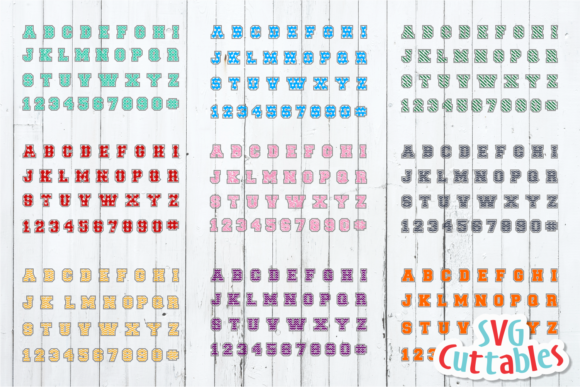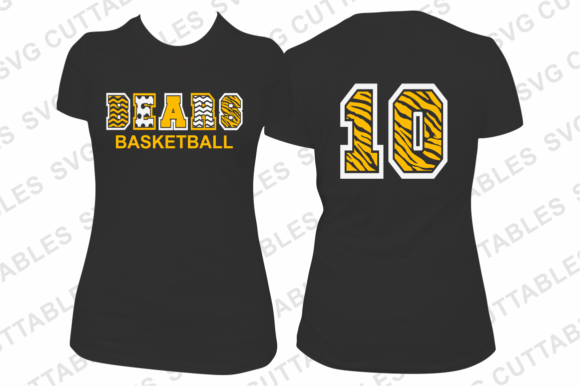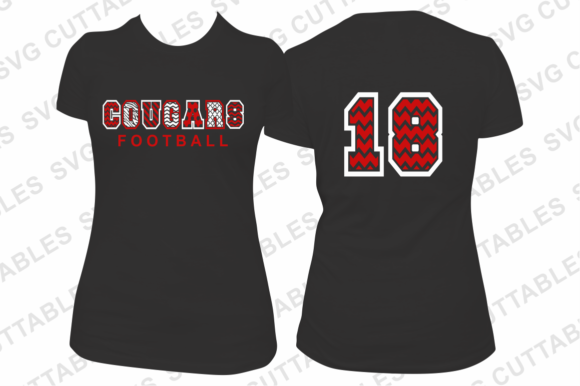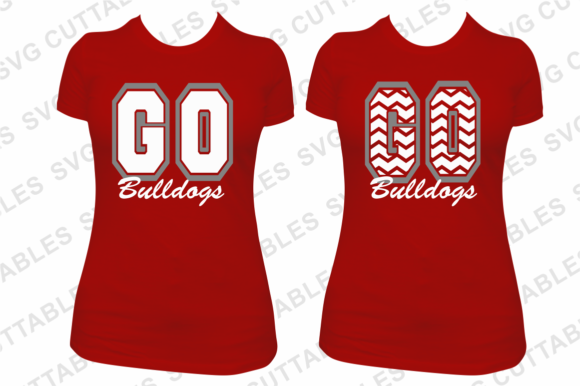
Introduction to Pattern Alphabet Font
Pattern Alphabet is a cool and incredibly unique decorative font.
It is perfect for children themed designs, especially when combined with bright colors .